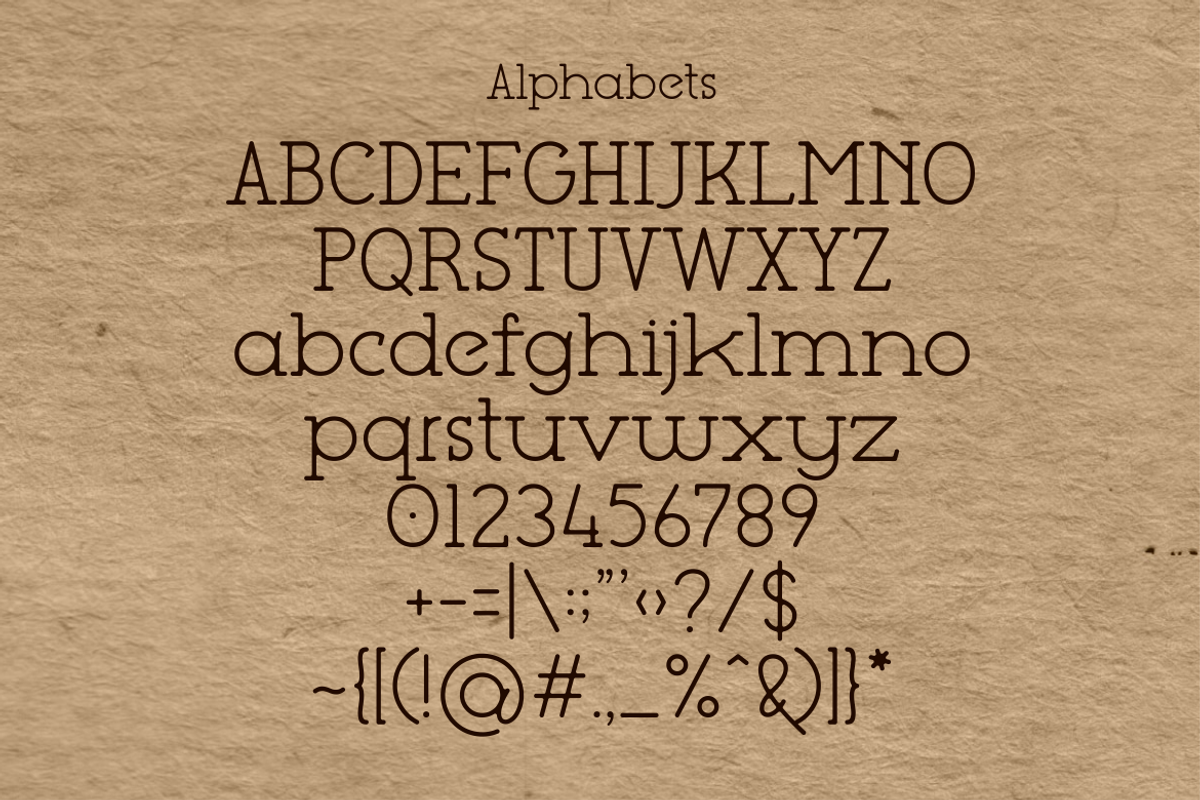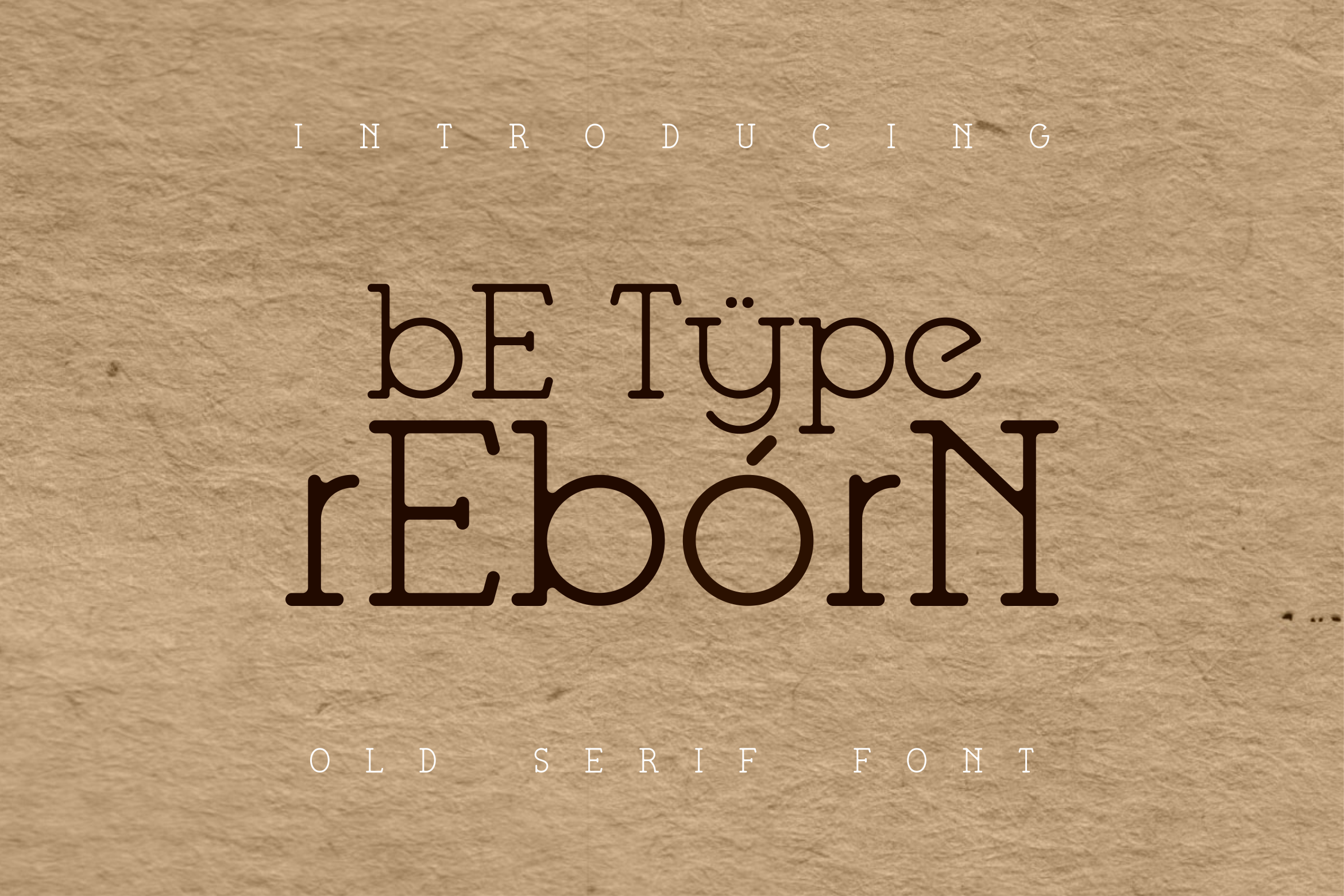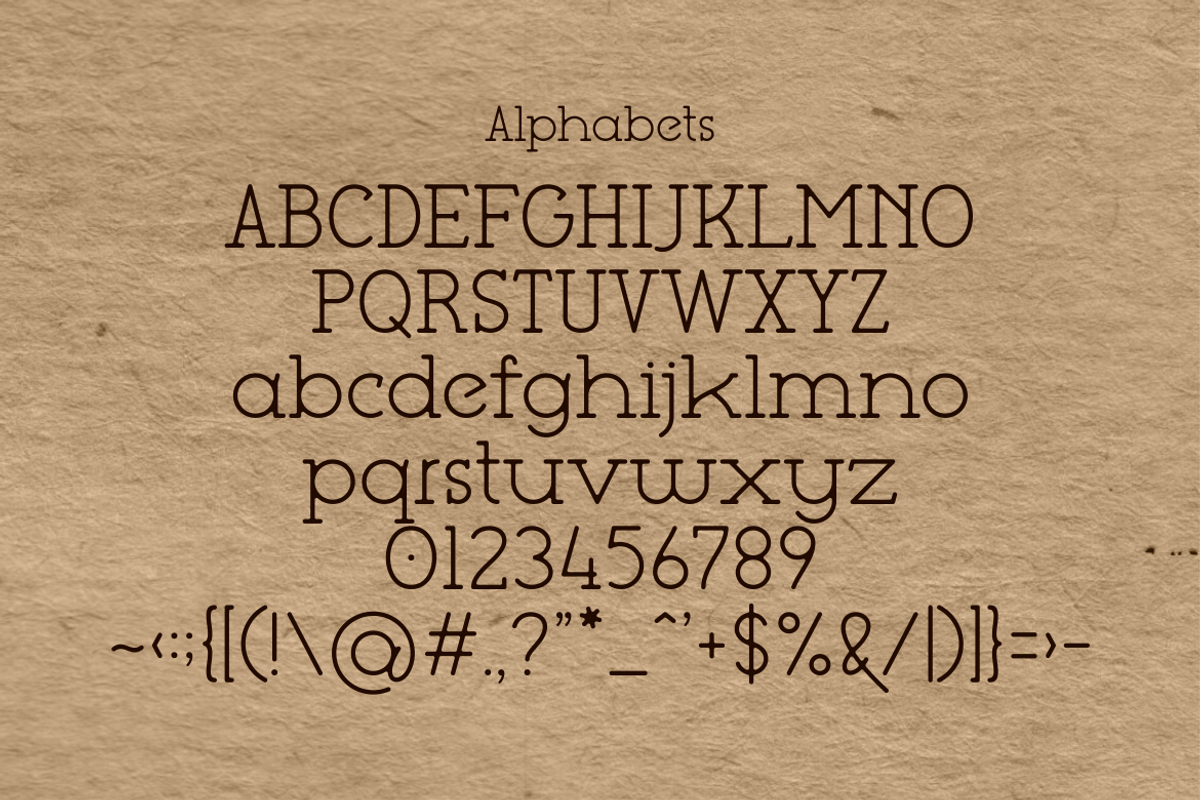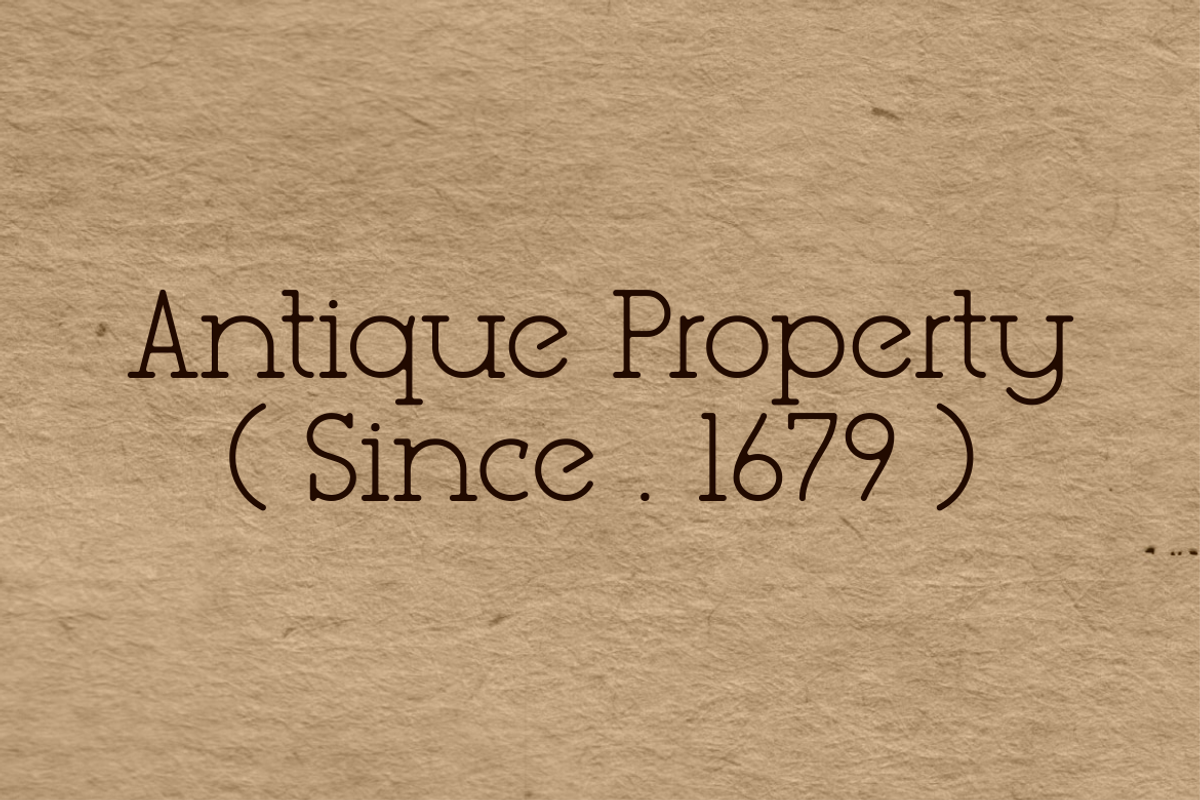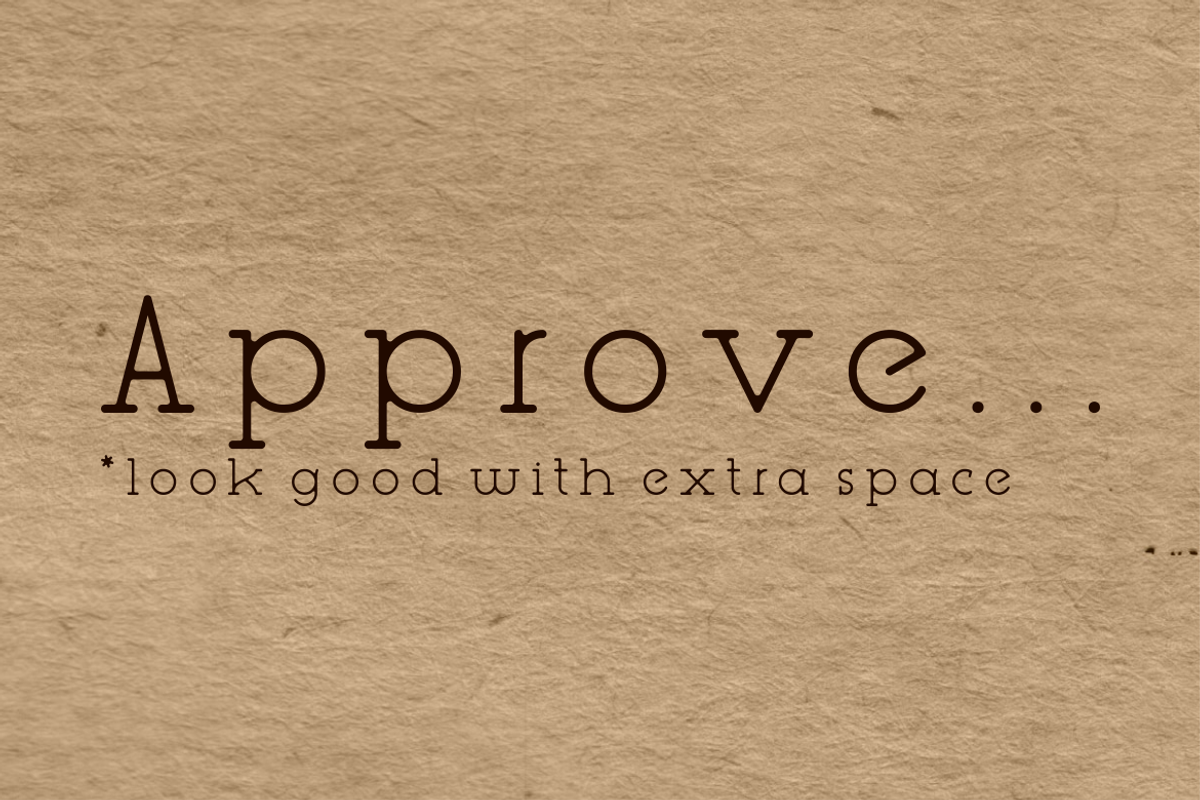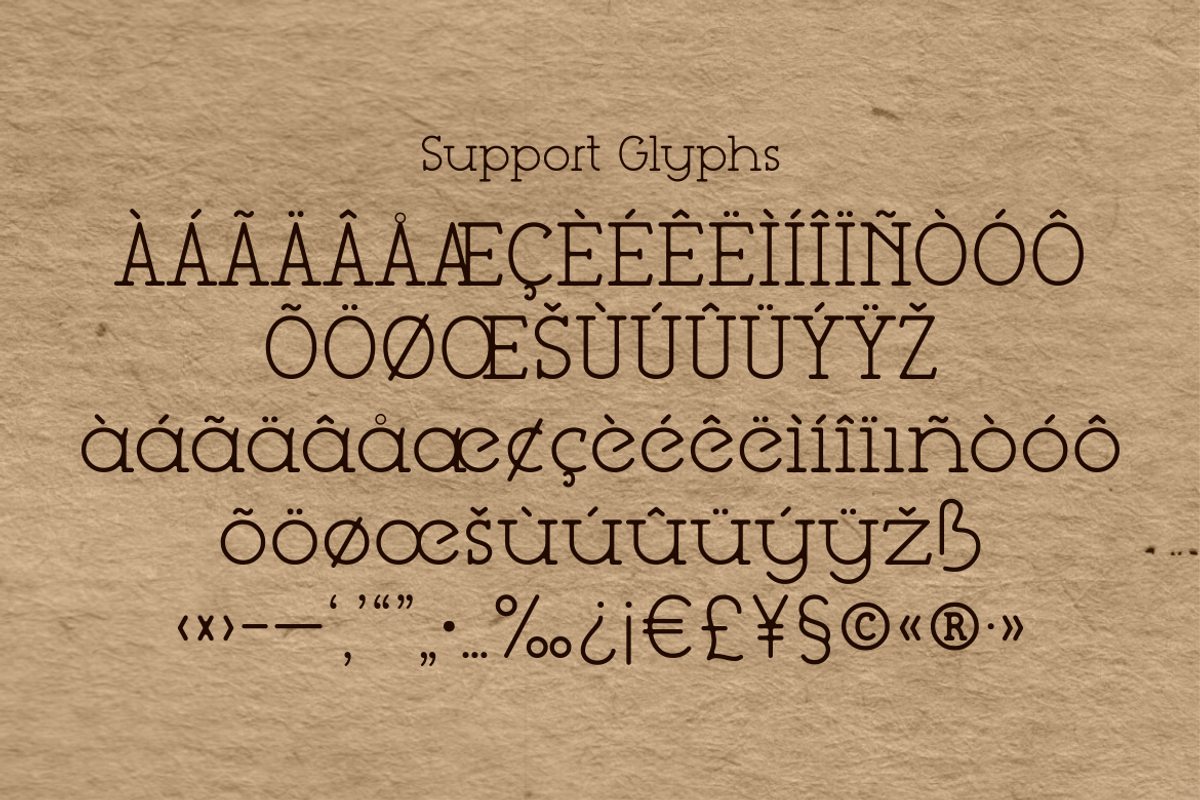
Be Type Reborn Lite Serif Font
is a combination of monoline fonts wrapped in a serif form and given a connecting space to make it look like the previous fonts. The focus on product use is not limited to old products, but contemporary things can also be combined with this font as an alternative font.